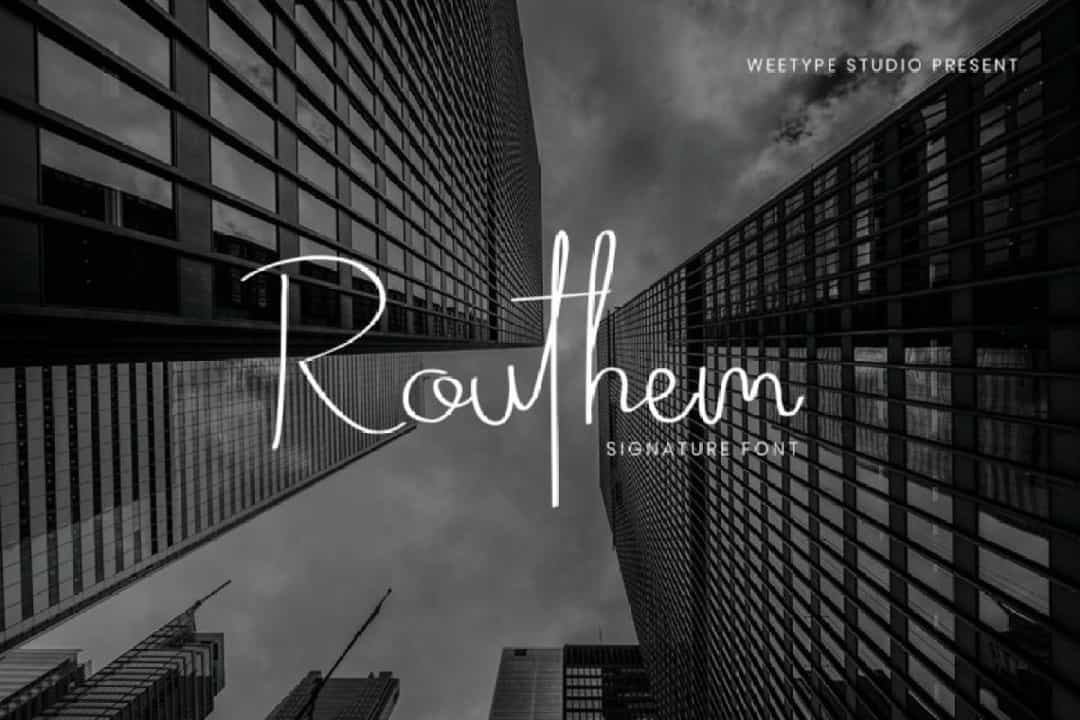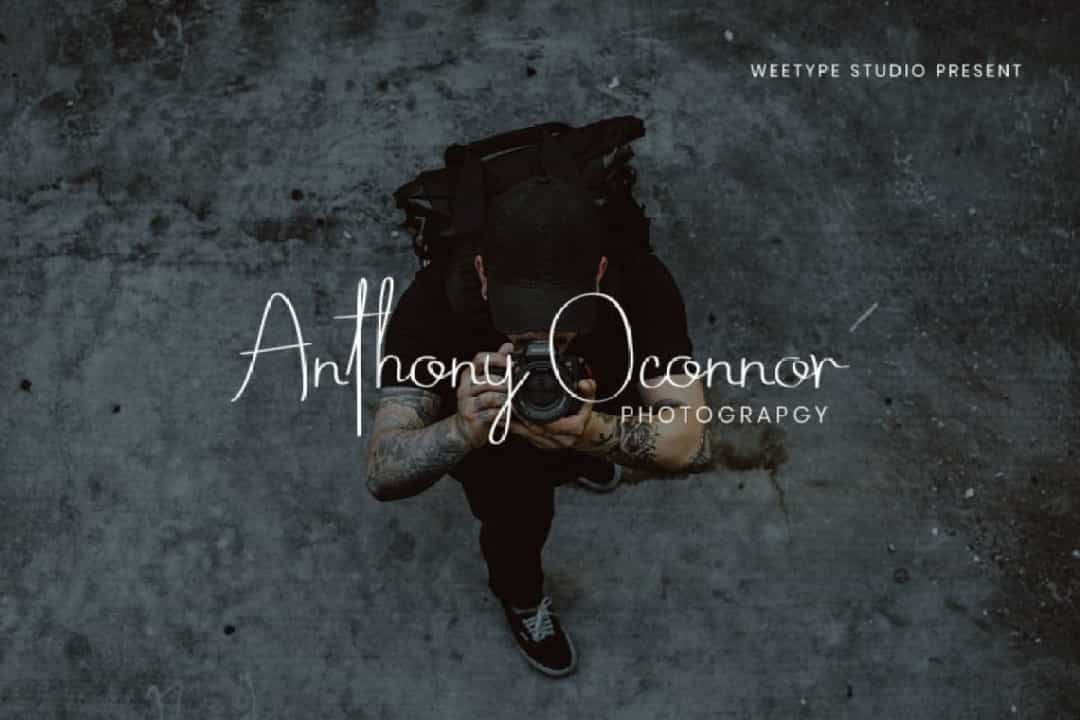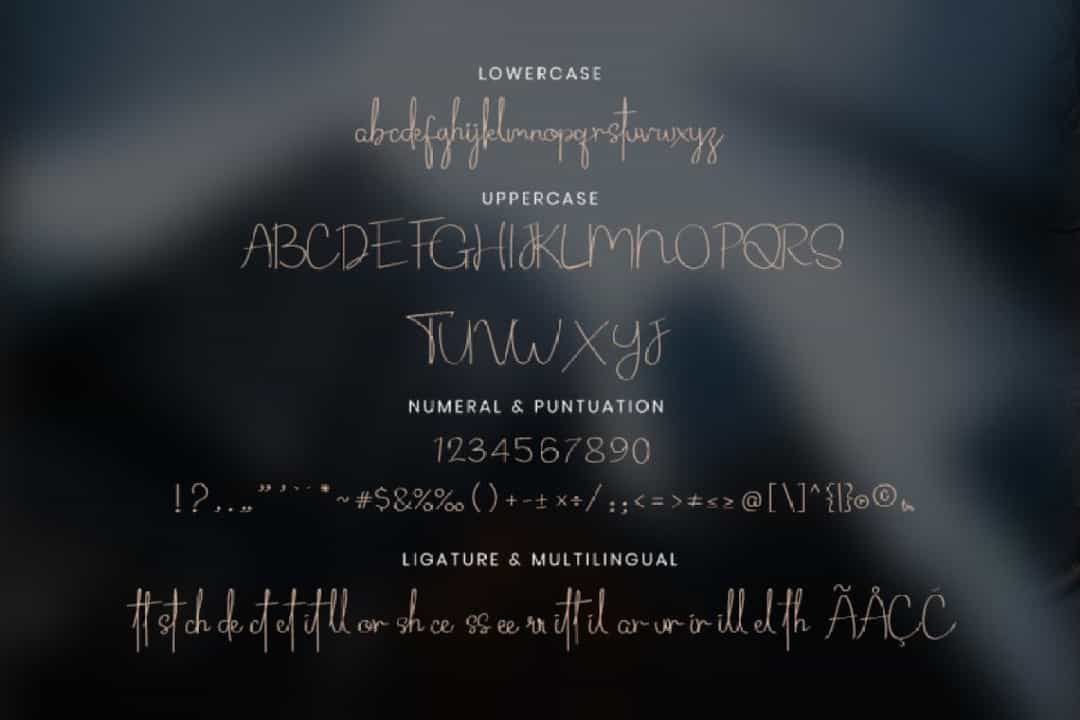
Routhem Font is a signature style script font with the clear and emphasized strokes and smooth flowing lines implied for being used as watermarks, photos posts for advertisement in social media, logos, branding, invitations, product designs, labels, packaging, stationery, as well as any special event that needs handwritten text. Routhem Signature Script also turns out to be suitable for handwritten events that allow handwriting.